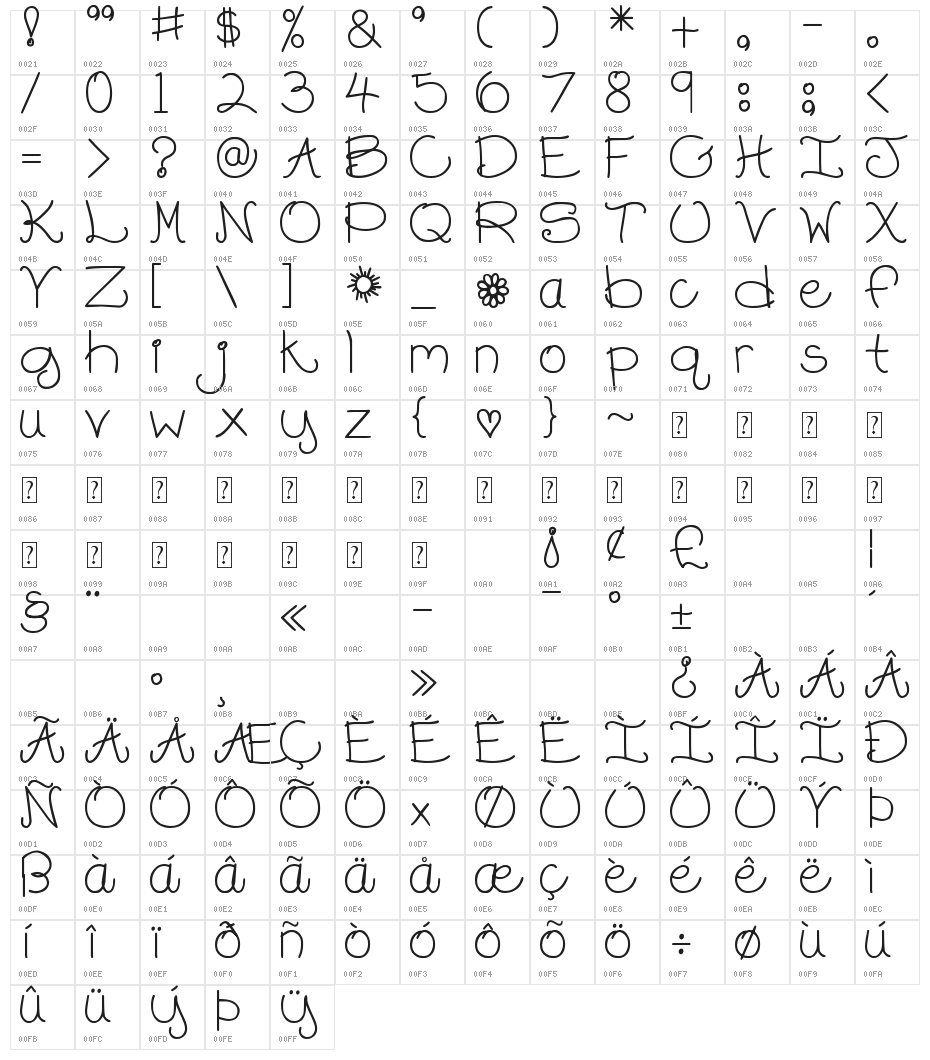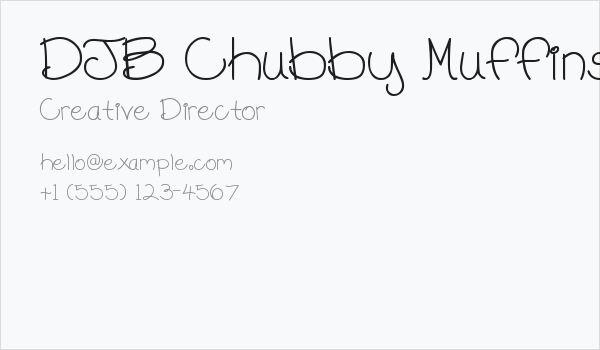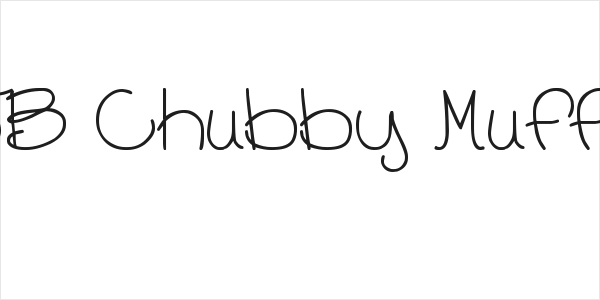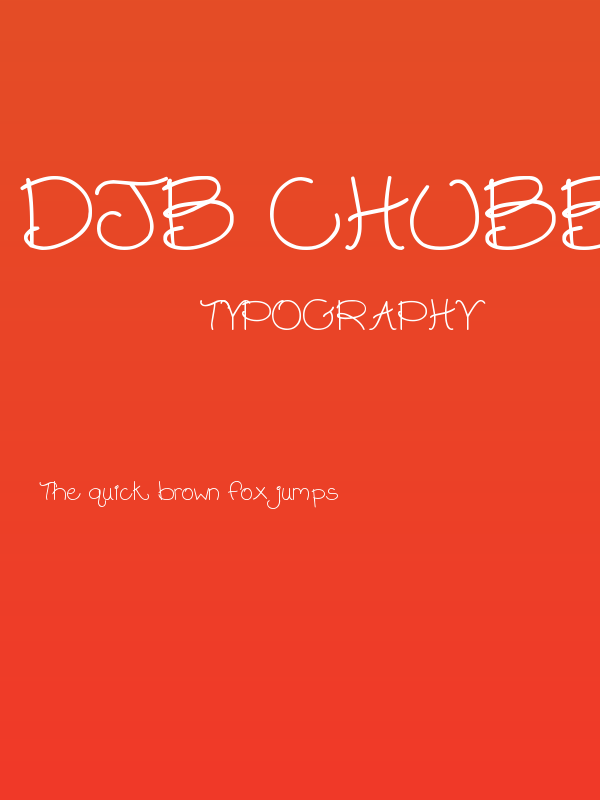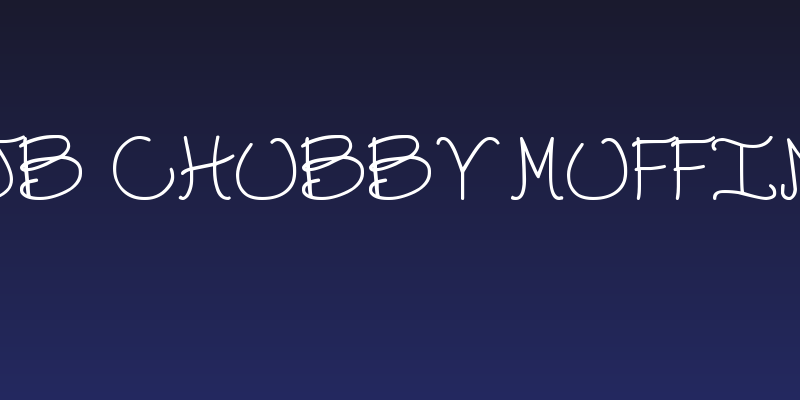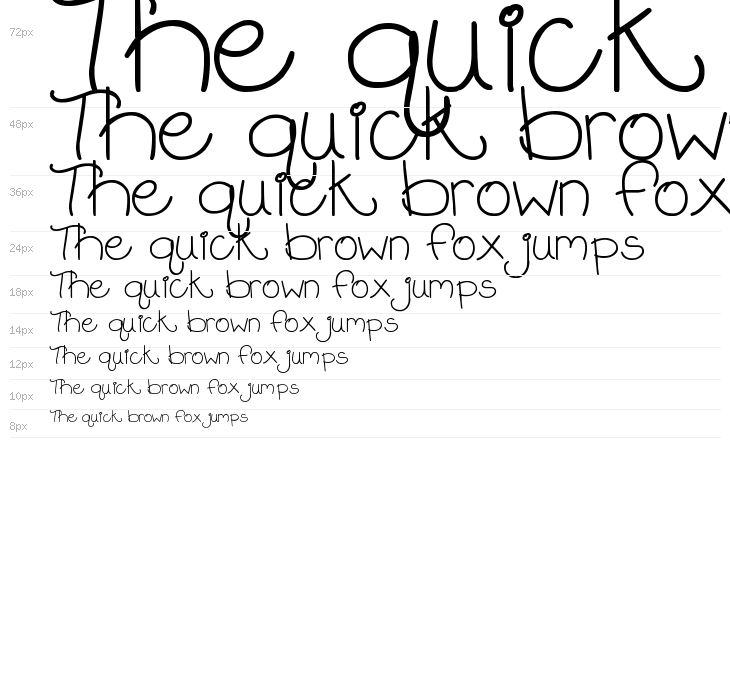
DJB Chubby Muffins Font
DJB Chubby Muffins Description
| Proposed Projects | Ideal for children's books, greeting cards, playful branding, and casual invitations. |